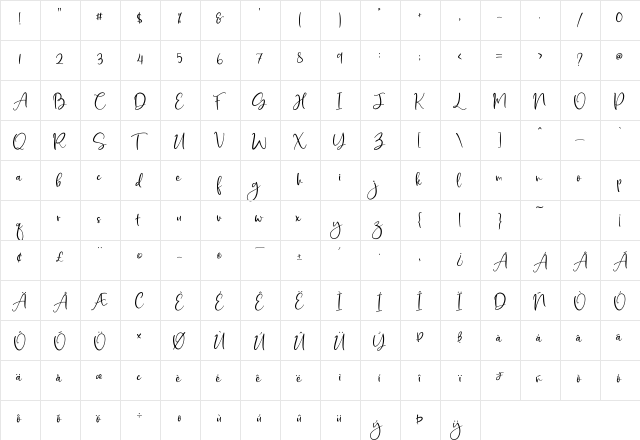
DeerUp Shouttap Script Regular
Design Context for DeerUp Shouttap Script Typeface
DeerUp Shouttap Script brings a calligraphic fluidity to the page — its connecting strokes and expressive curves give it an unmistakably human quality.
Font Pairing: Combine DeerUp Shouttap Script with a simple geometric sans for maximum contrast — the tension between flowing curves and clean structure is a classic typographic pairing.
Pro Tip: Use DeerUp Shouttap Script for short runs of text — names, titles, or taglines. Extended body copy in script faces tires the eye quickly.